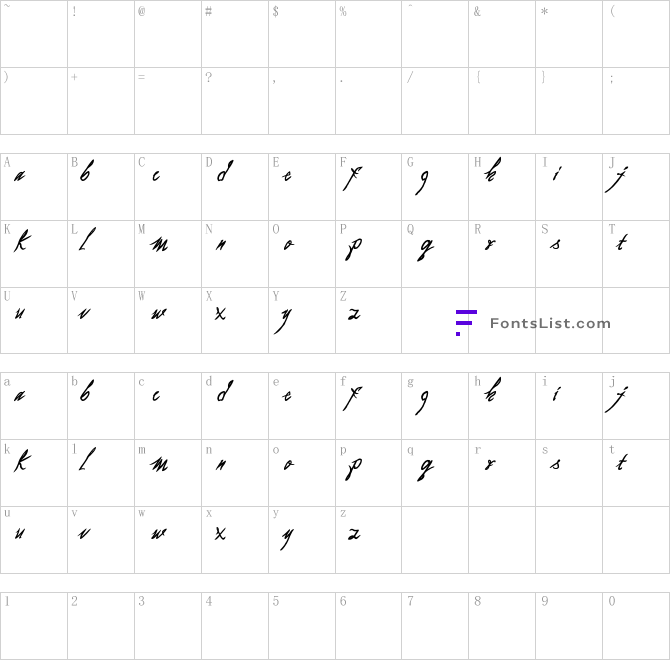
- Font Name:as i lay dying
as-i-lay-dying.ttf is a very beautiful artistic font, as-i-lay-dying.ttf is widely used in the design and printing of various books and pictures,as-i-lay-dying.ttf has a strong visual impact,as-i-lay-dying.ttf is a commonly used font in newspapers, magazines and books, and is used in posters, e-commerce Poster design, store design, logo design, font design and other fields.as-i-lay-dying.